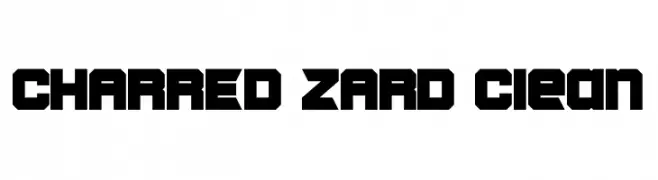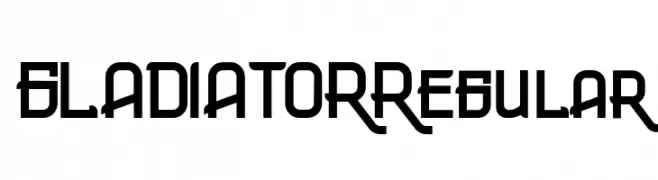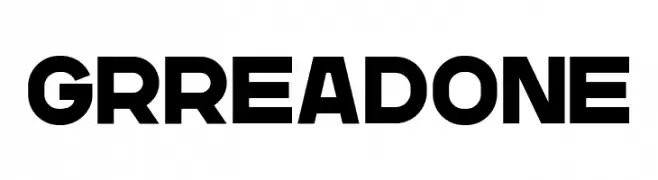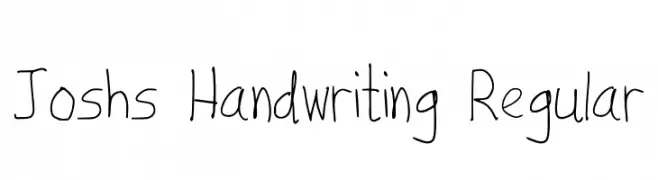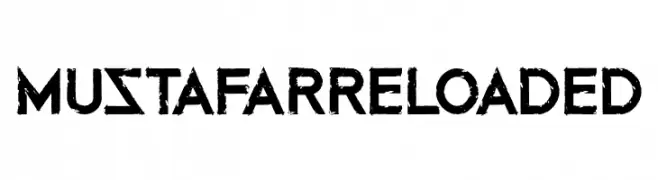
A bold, playful font with exaggerated, uneven letterforms.
A bold, geometric font with a futuristic and industrial design.
A bold, distressed font with a futuristic and edgy design.
A bold, geometric font with a modern and impactful style.
A bold, geometric font with angular lines and a futuristic style.
An elegant and flowing script font with graceful loops and smooth cursive strokes.
A lively handwritten font with dynamic strokes and a playful aesthetic.
A casual, handwritten-style font with thin, irregular strokes.
A bold, expressive handwritten font with dynamic strokes and playful curves.
A bold, geometric font with strong, angular lines and a modern industrial look.